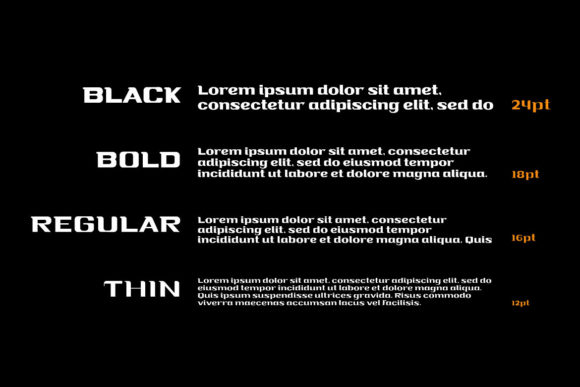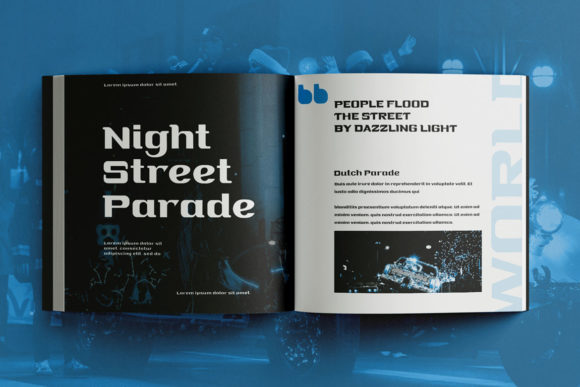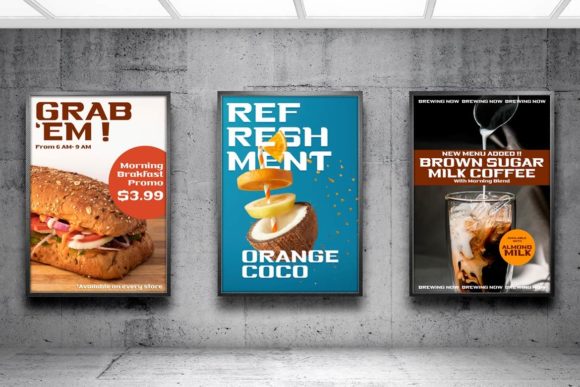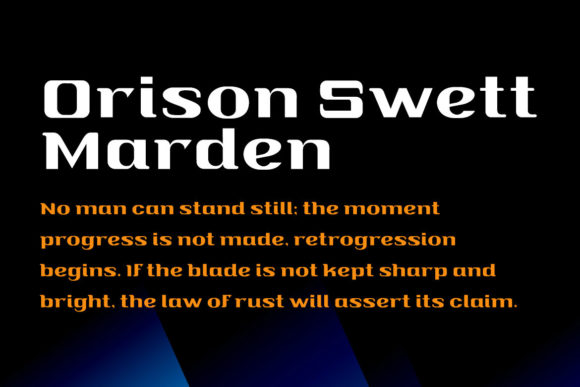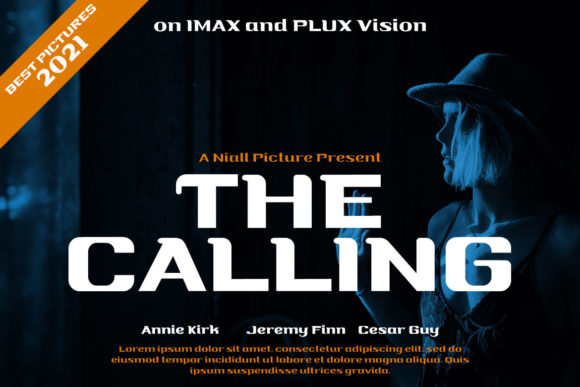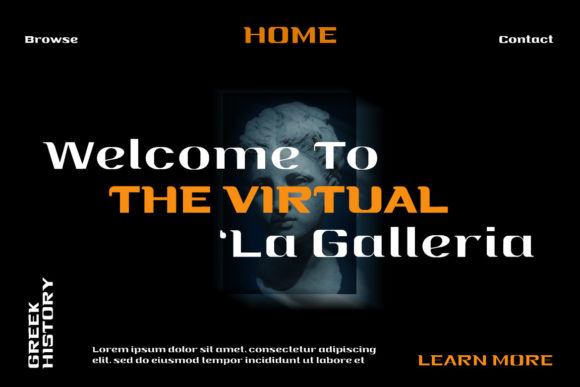
Introduction to Segira Font
Segira is a slab serif font that gives off a charming and sophisticated vibe when used in a specific project.
Because each letter has a distinct shape, this font is highly suggested for use in your major projects; everyone will be impressed and focused on the graphic appearance of your project, and you will receive a lot of positive feedback Of course, your various design projects will be perfect and extraordinary if you use this font – because this font is equipped with different characters suitable for titles, subtitles, and body text.